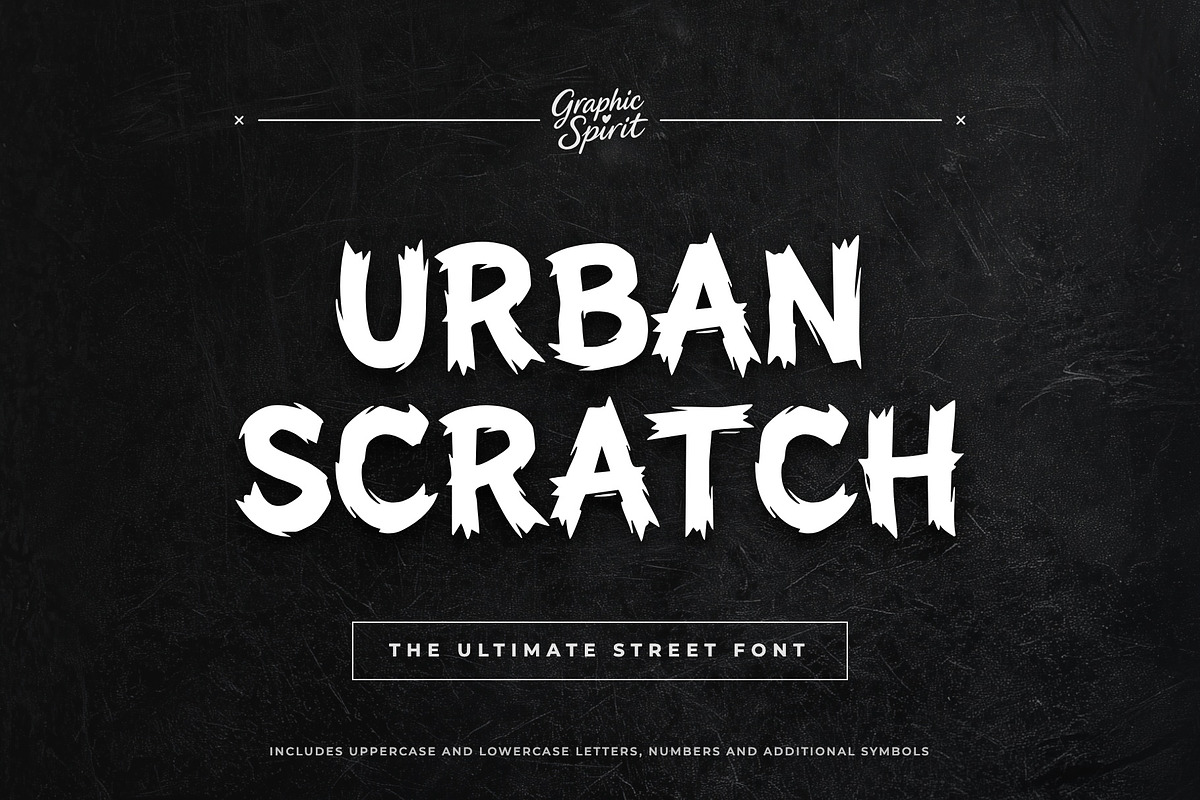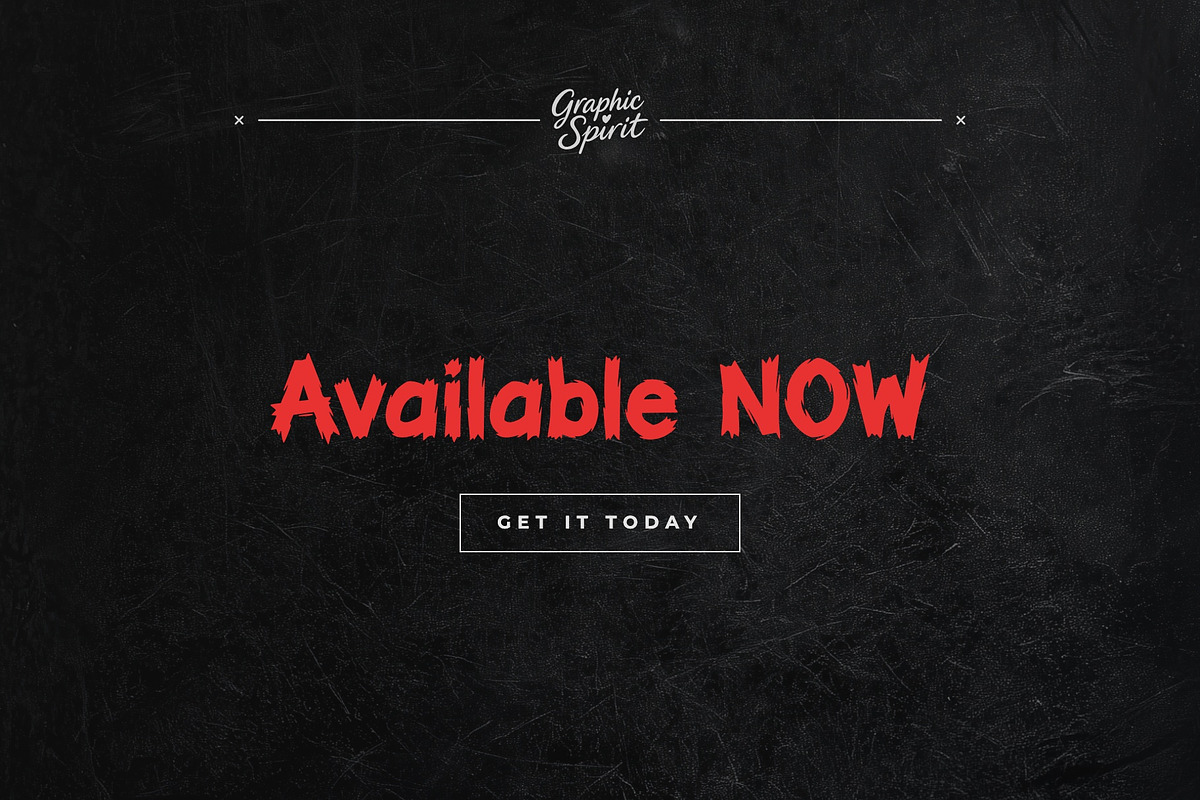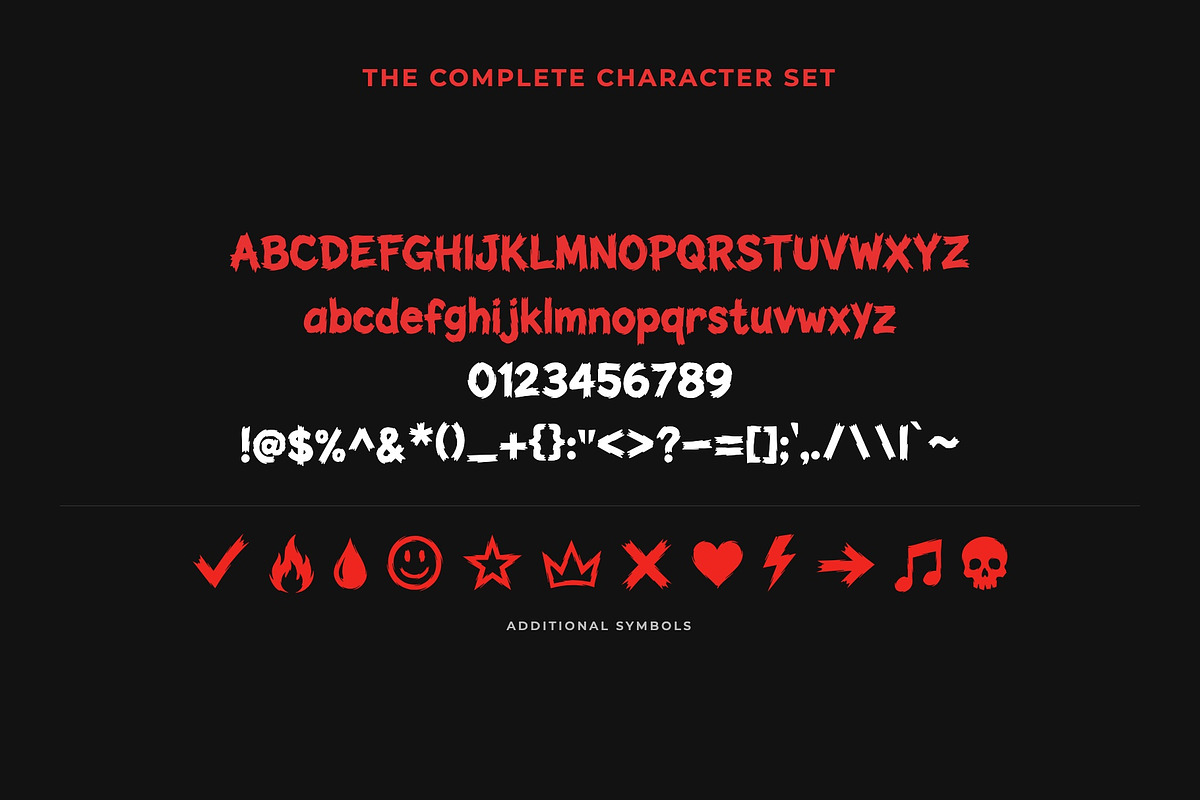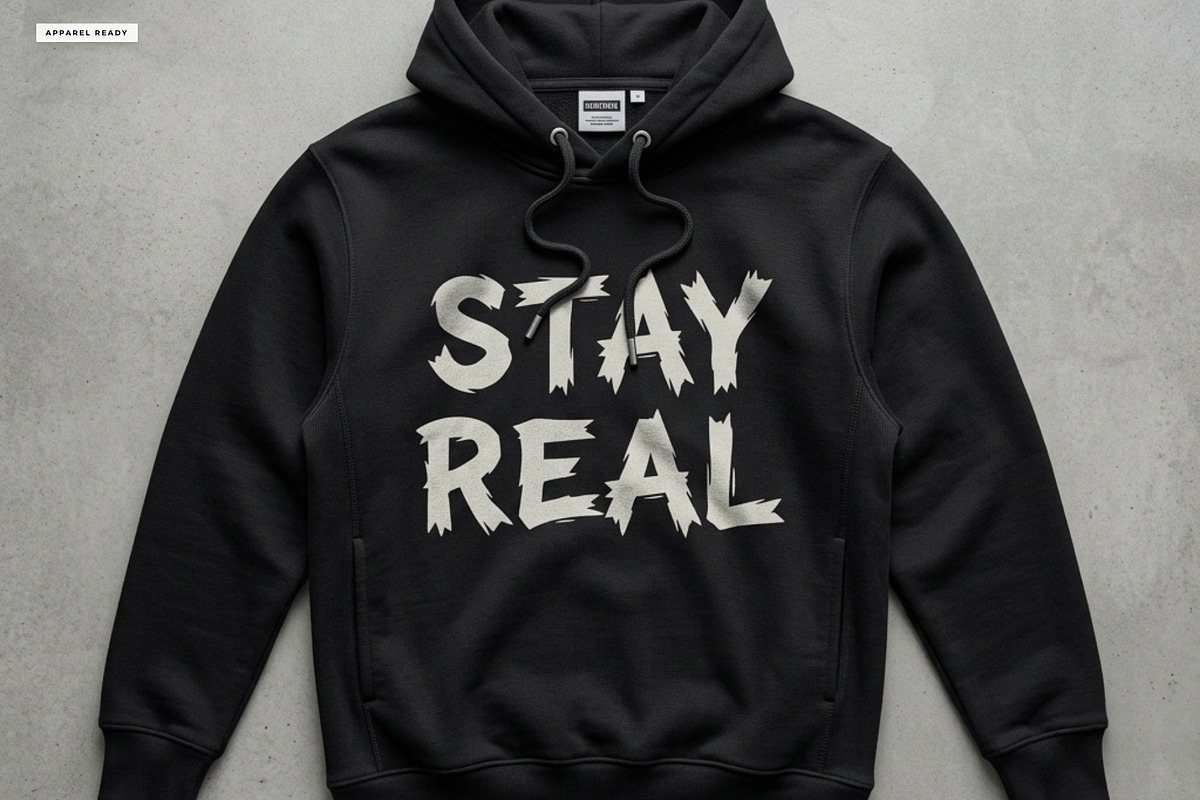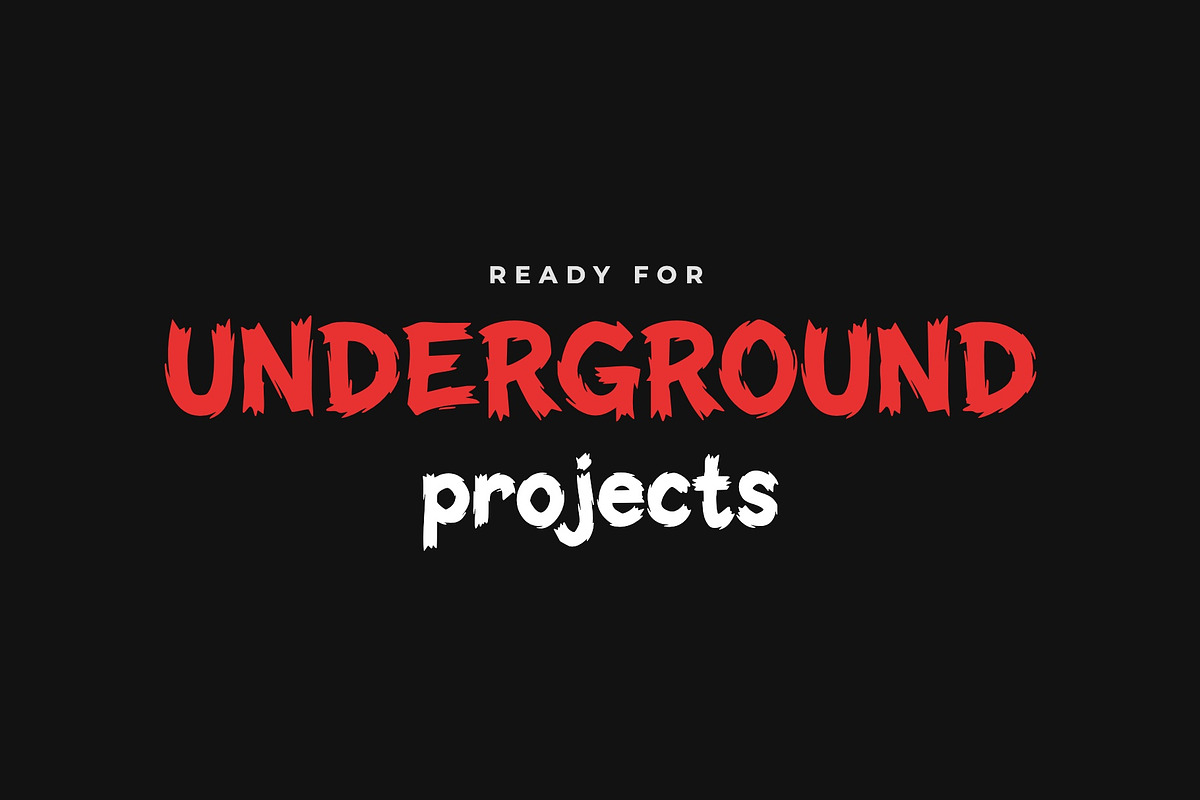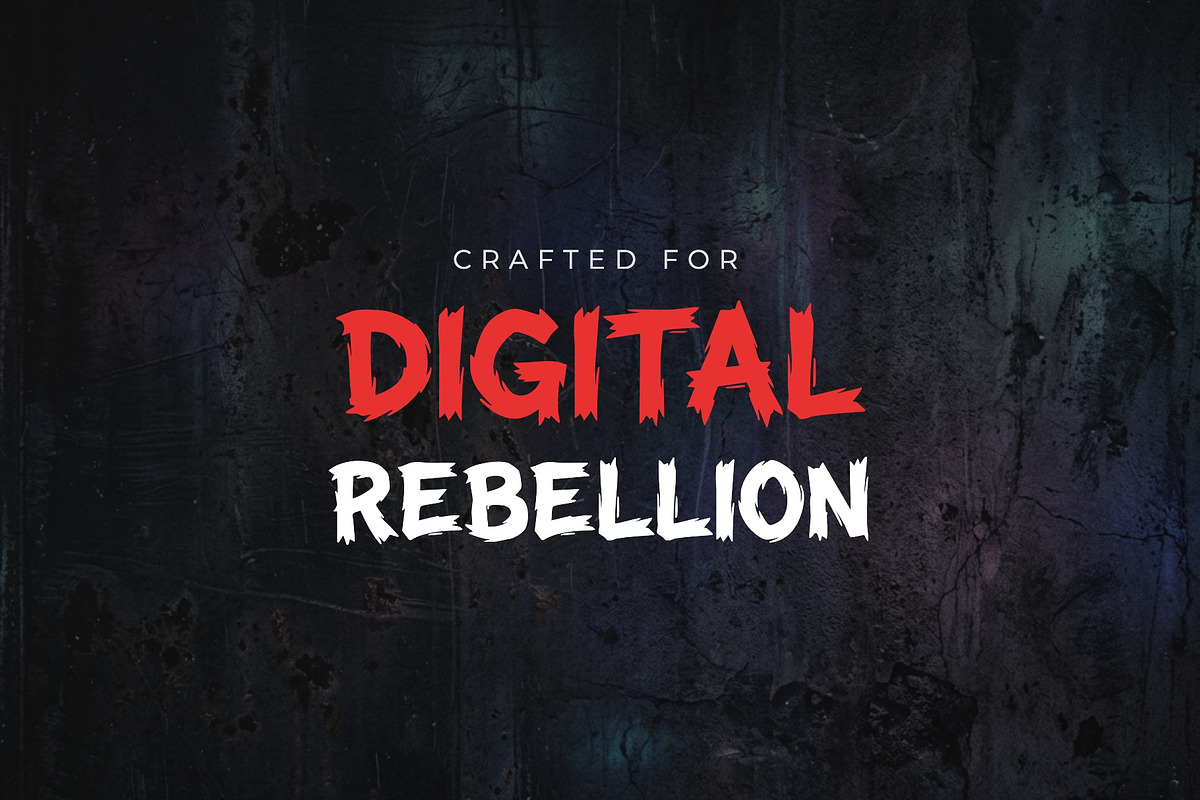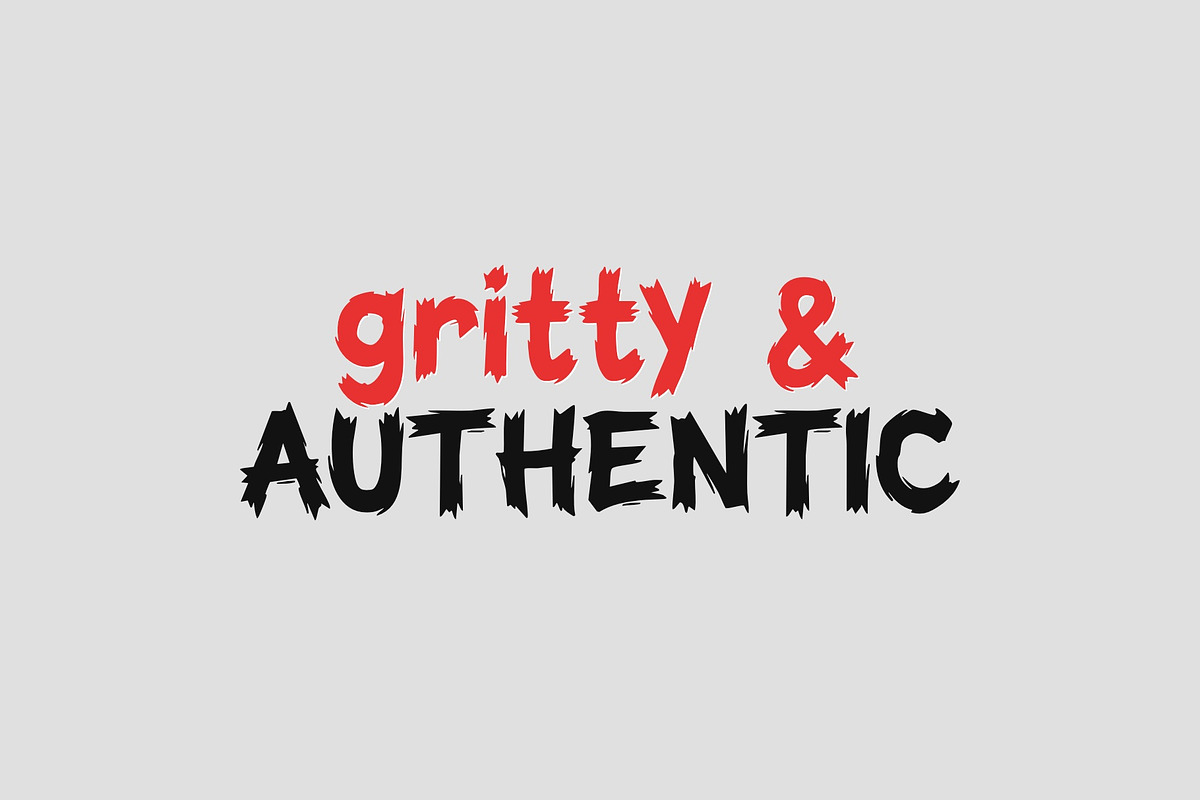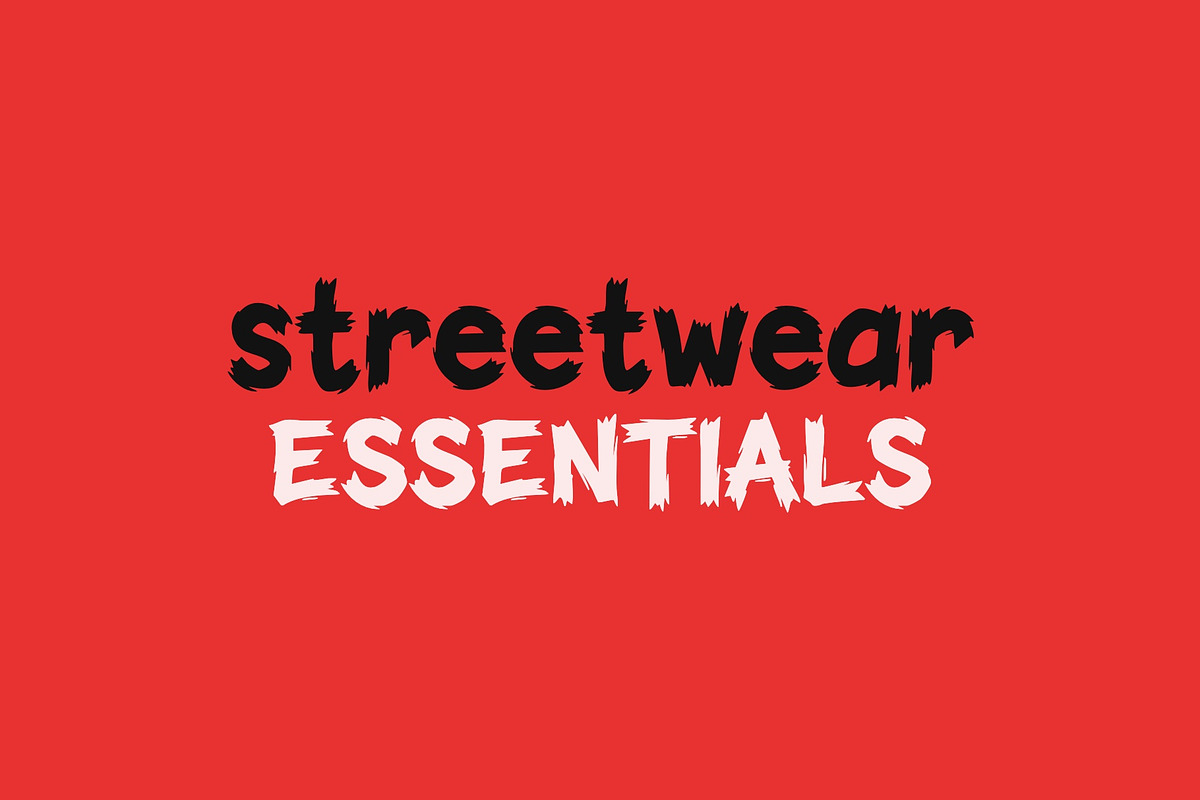
Urban Scratch Decorative Font
Urban Scratch is a raw and expressive street-art font that brings a bold storytelling vibe to modern design projects. As a digital download, it offers authentic hand-drawn scratch textures and extra assets, ideal for designers seeking an edgy and impactful look for their branding or editorial work. The typeface's aggressive yet legible lines ensure a powerful presence in any creative layout.
Designed for clarity and grit, Urban Scratch is perfect for everything from street-style logos to high-impact social media graphics. Its state-of-the-art design includes extra decorative elements that allow you to customize your typography with a truly bespoke feel. Elevate your creative toolkit with this versatile font that balances urban attitude with the power of expressive storytelling for impactful results.